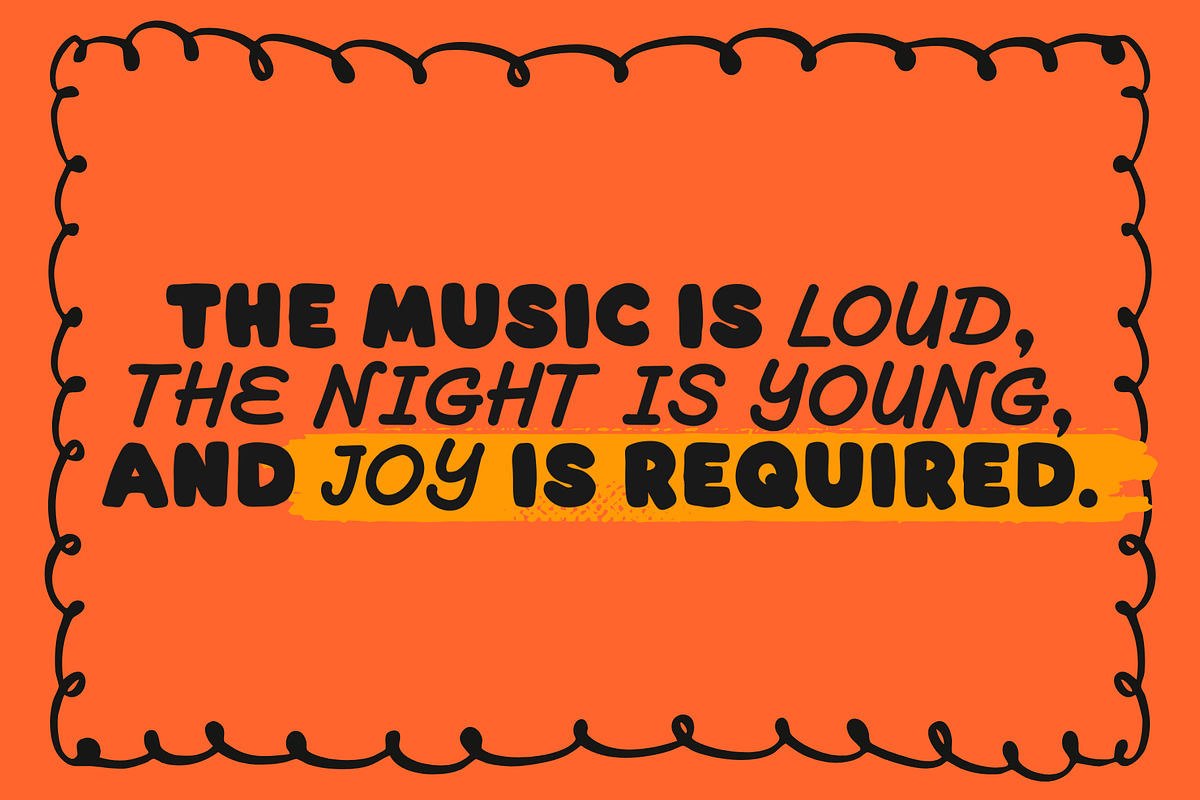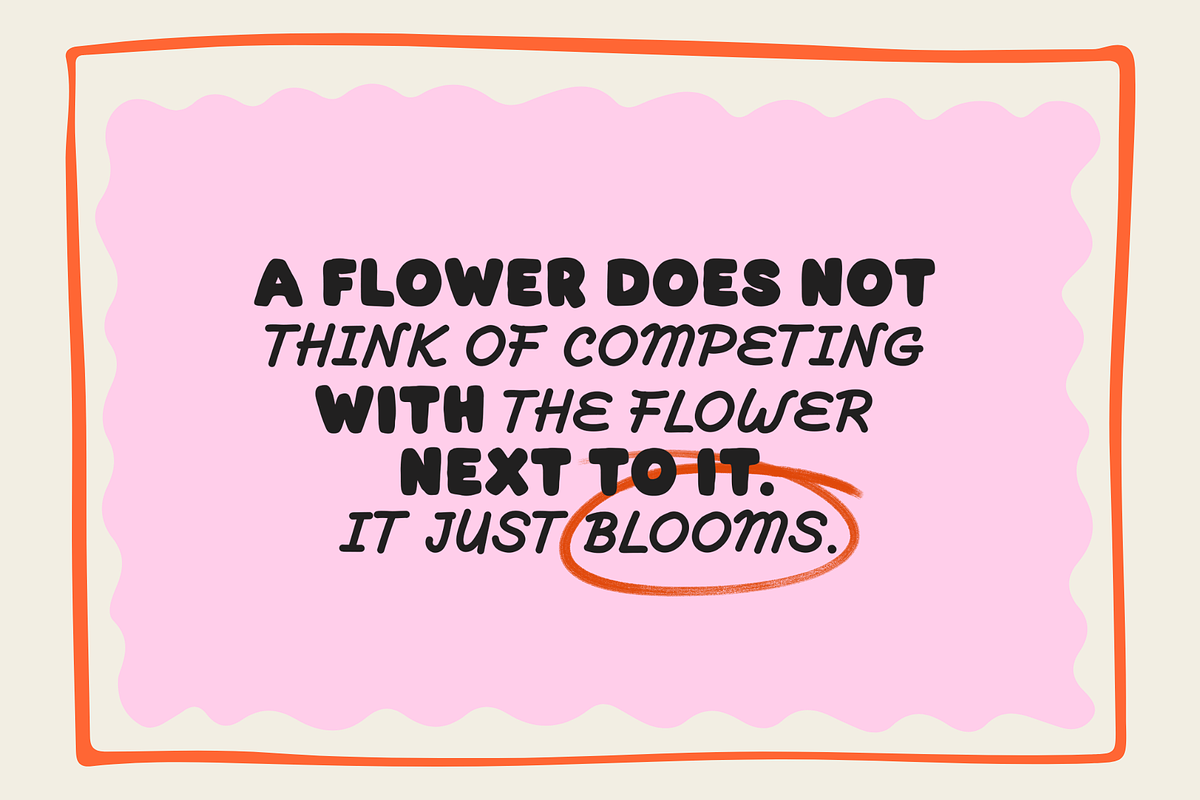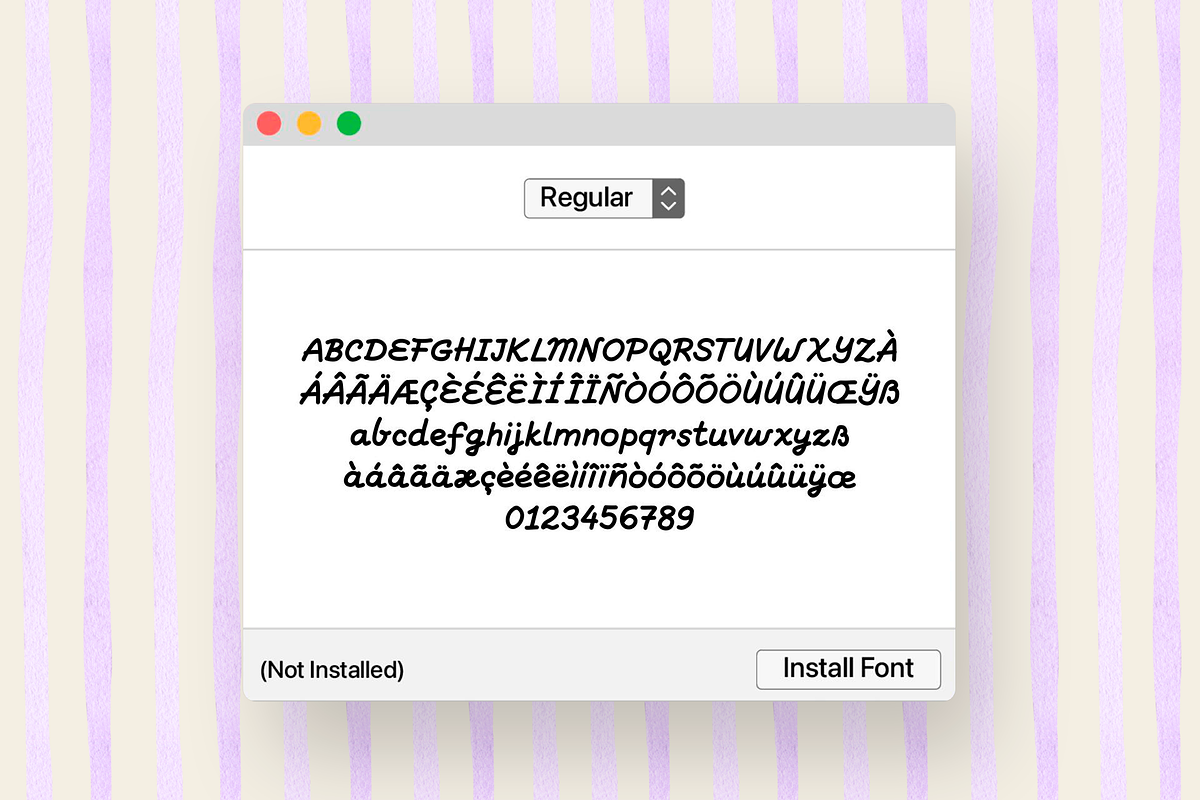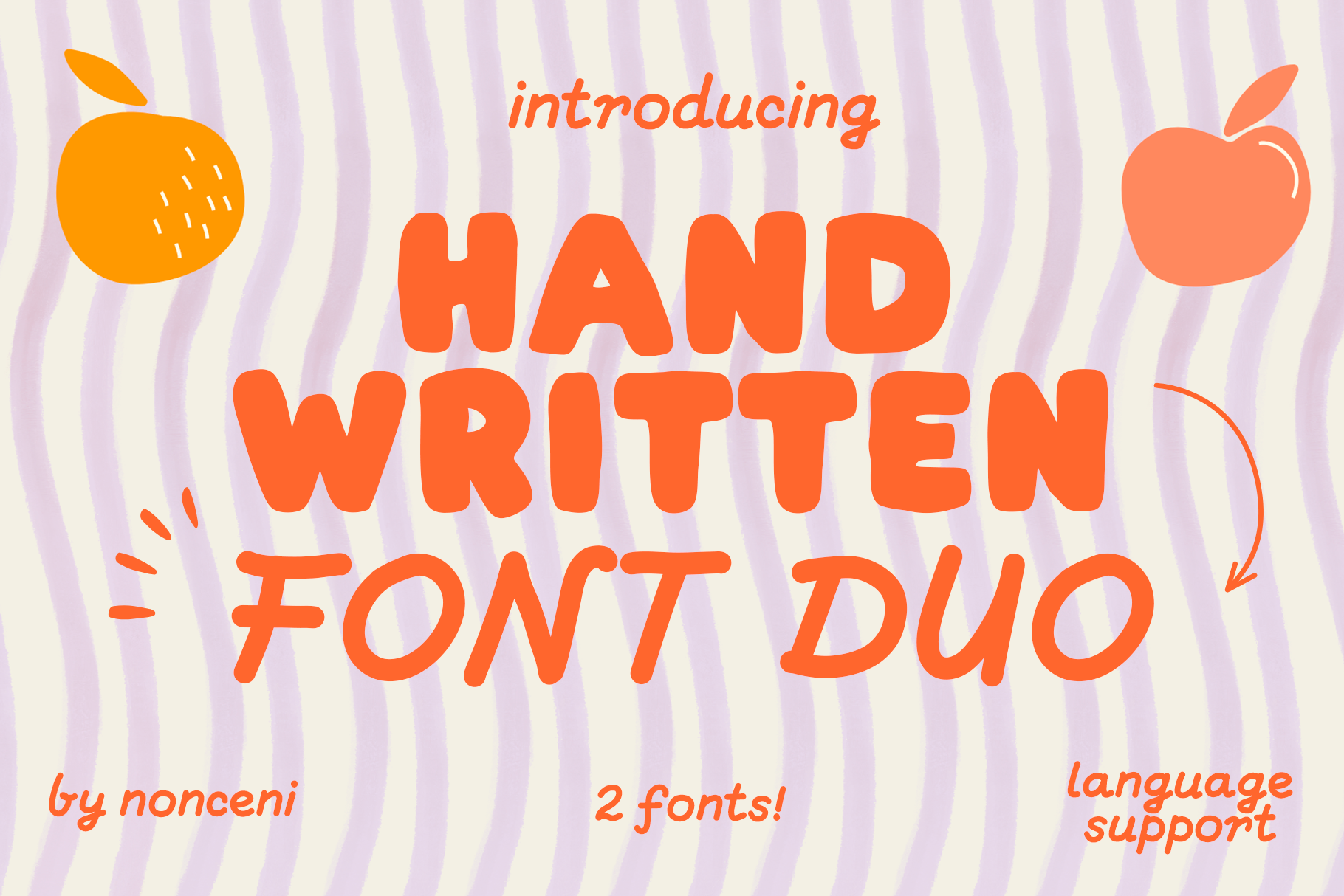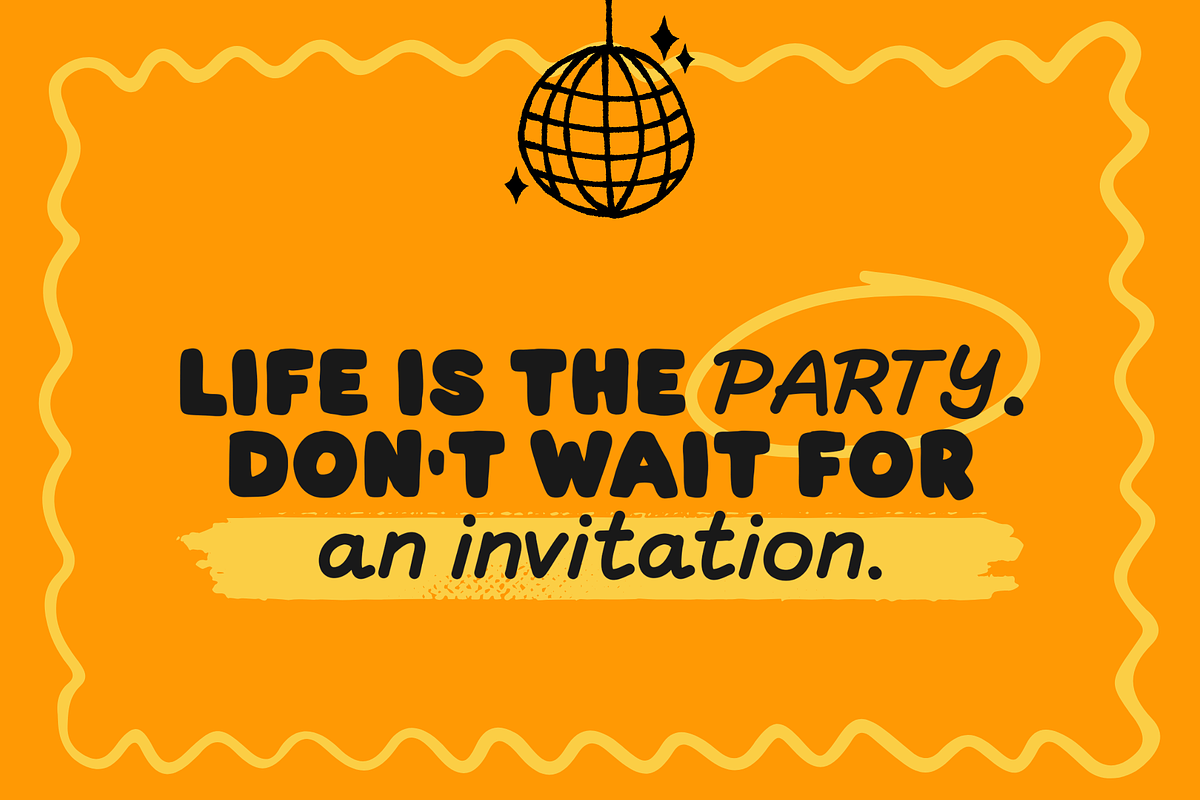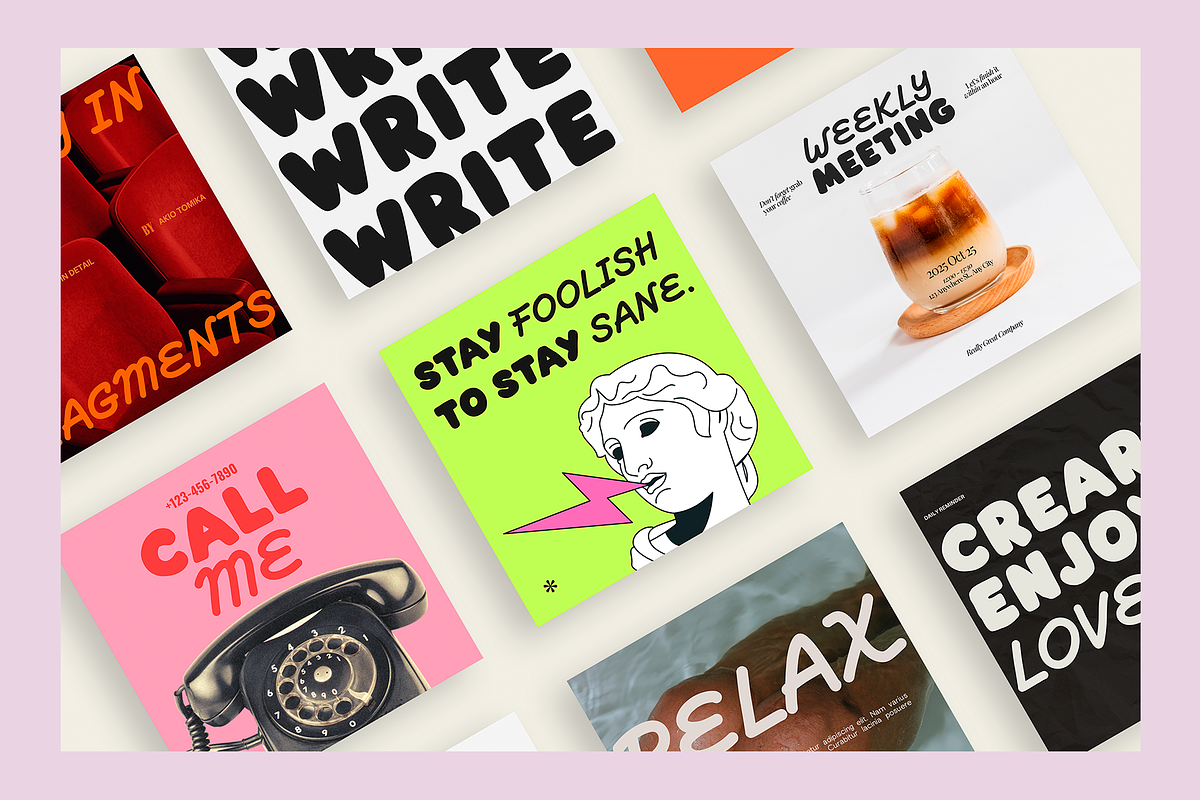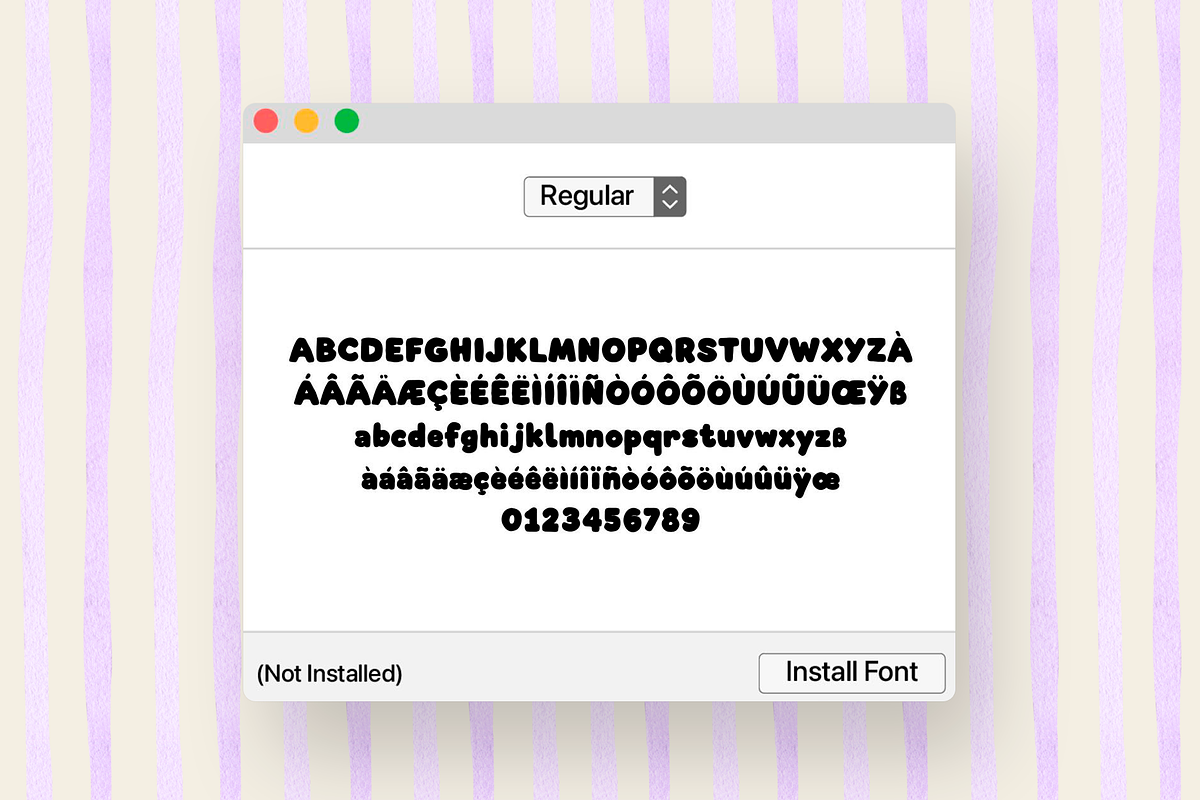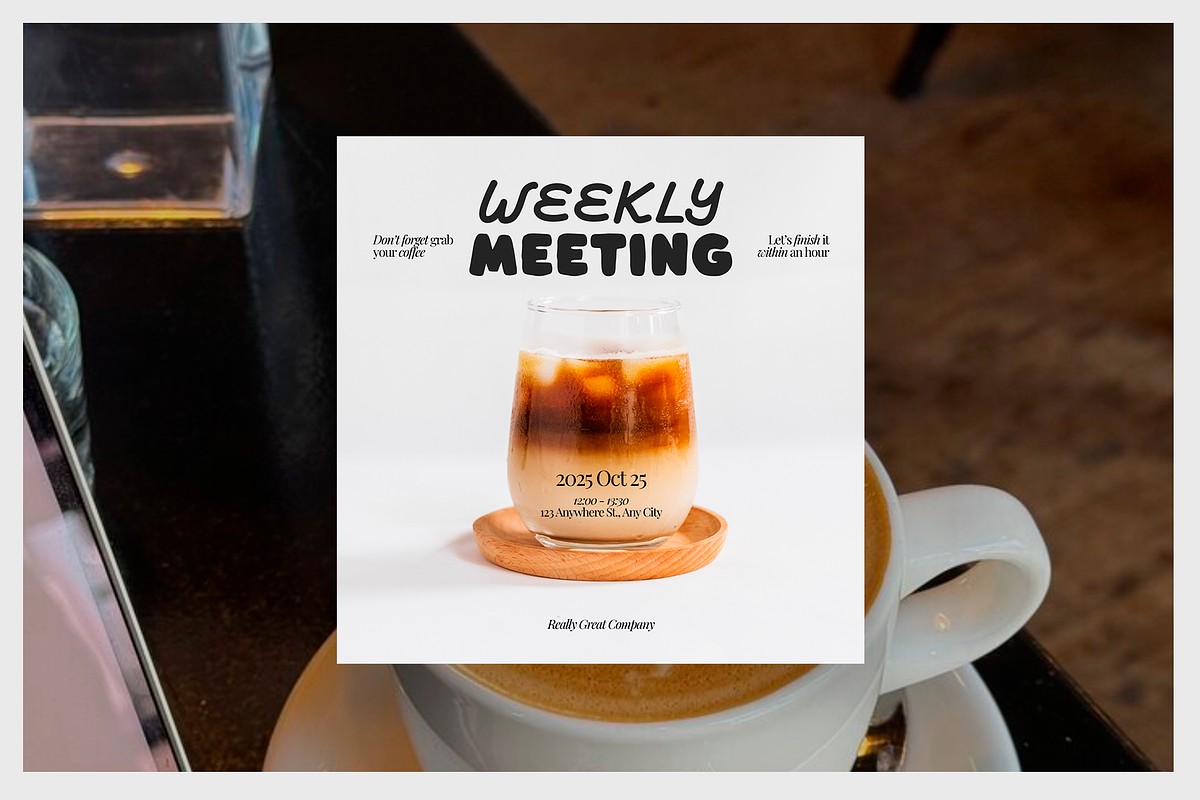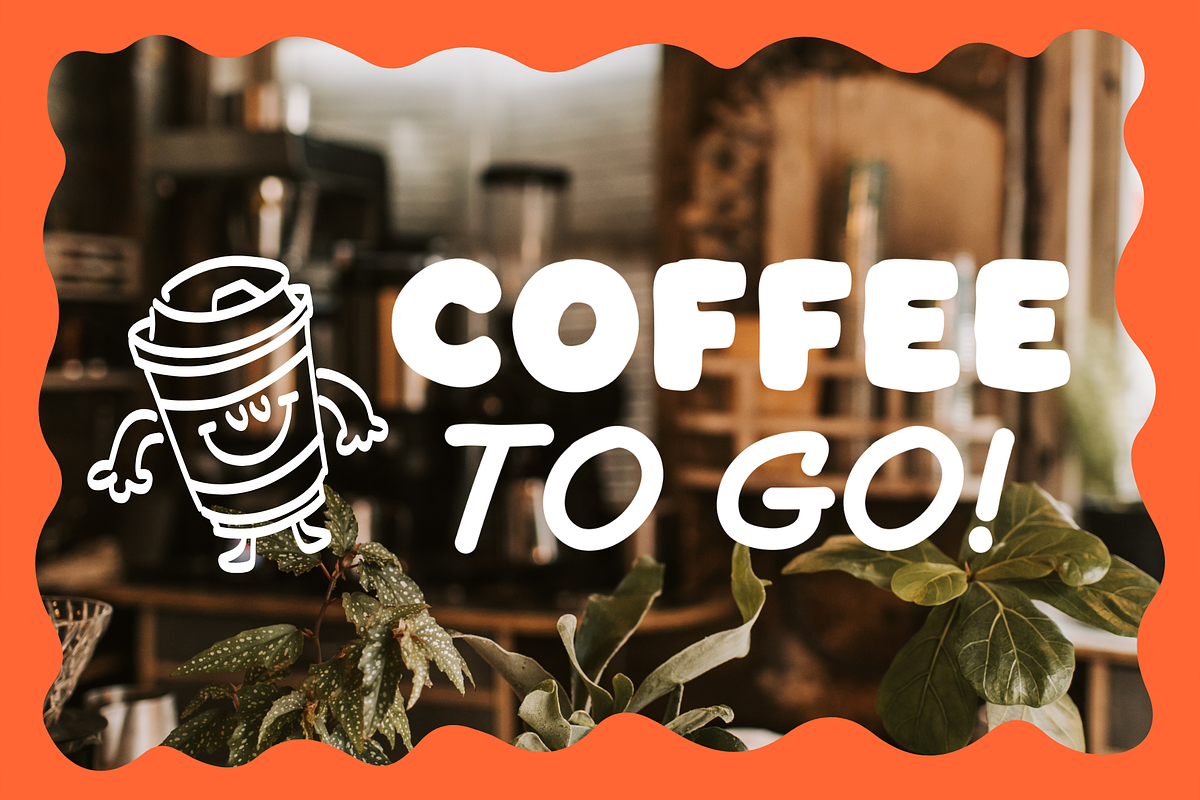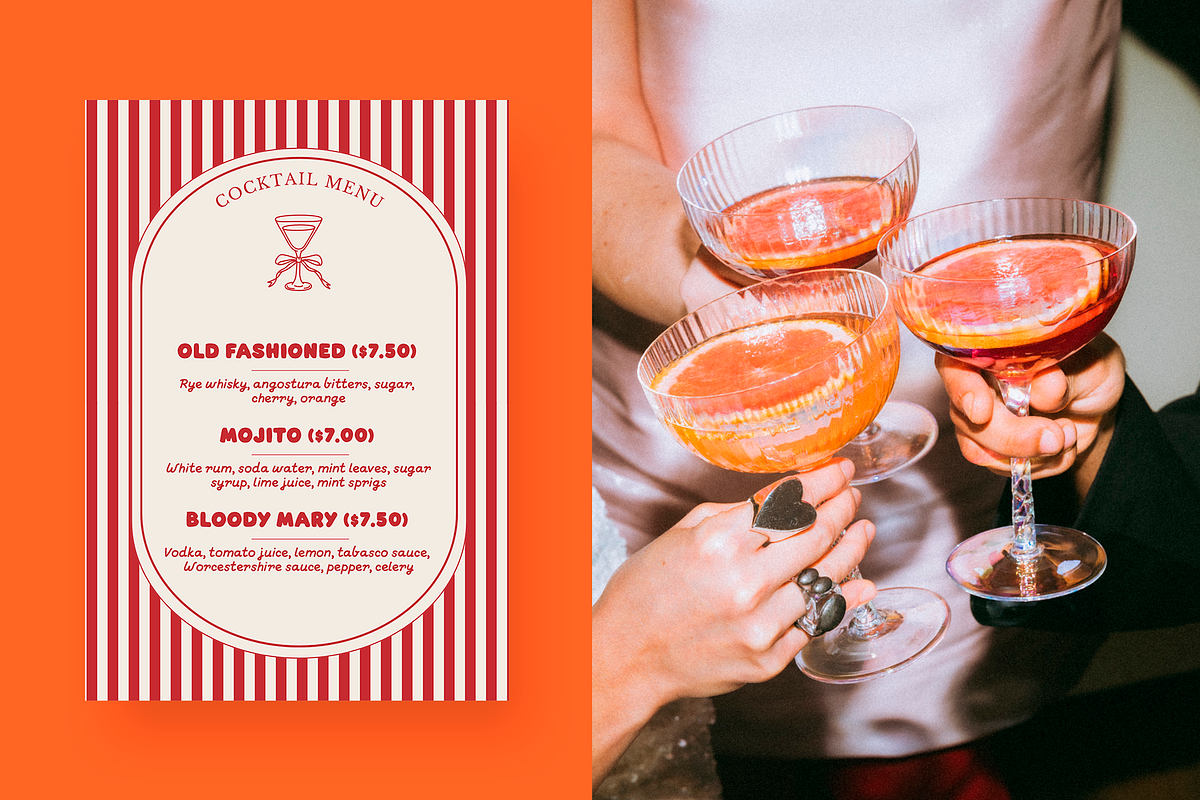
Handwriting Cute Playful Font Duo
The perfect pairing for creators who want their designs to feel personal, friendly, and full of character.
Happy Bold & Starlight Script is a handcrafted duo designed to bring a touch of whimsy and aesthetic charm to your creative projects. This set includes a thick, rounded display font (Happy Bold) and a breezy, monoline cursive (Starlight Script) that work together seamlessly to create eye-catching headers and heartfelt messages.
Whether you are designing for a boutique brand, a cozy cafe, or your own social media, this duo provides the perfect balance of "bold impact" and "sweet detail."
Happy Bold: A chunky, fun, and ultra-readable handwritten display font. Perfect for titles that need to pop with a friendly, approachable vibe.
Starlight Script: A thin, monoline script with a bouncy baseline. It mimics natural handwriting and adds an authentic, "journaled" feel to any design.
Language Support: Fully equipped with multilingual characters to ensure your message reaches a global audience. Supports: english, spanish, french, italian, german, portuguese
Social Media Graphics: Create viral Instagram quotes, Pinterest pins, and TikTok captions that stand out.
Branding & Logos: Perfect for small businesses like bakeries, florists, or handmade shops.
Digital Journaling: Elevate your GoodNotes or iPad planner layouts.
Packaging Design: Give your product labels a "made with love" look (think: Matcha Club or Cafe vibes!).
Apparel & Merchandise: Looks amazing on tote bags, t-shirts, and stickers.